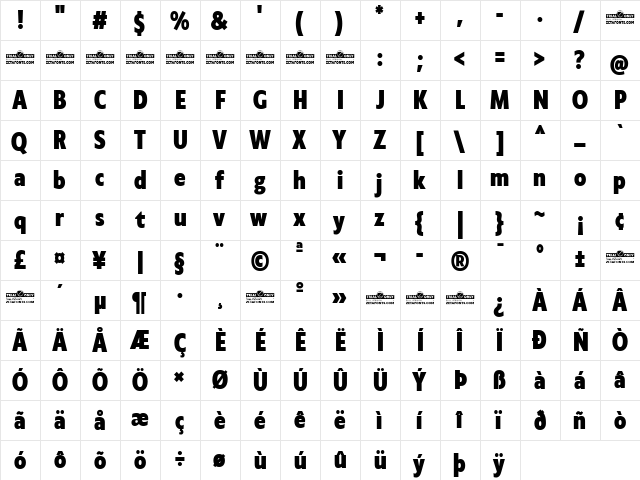
Klein Condensed Trial Extrabold
| Foundry | Cosimo Lorenzo Pancini & Francesco Canovaro |
| Designer | Cosimo Lorenzo Pancini & Francesco Canovaro |
Design Context for Klein Condensed Trial Typeface
Klein Condensed Trial takes a measured approach to typography — its balanced proportions and neutral character make it a reliable workhorse for both digital and print work. The heavy weight commands attention and anchors typographic hierarchies. The condensed width makes it efficient for tight spaces without sacrificing legibility.